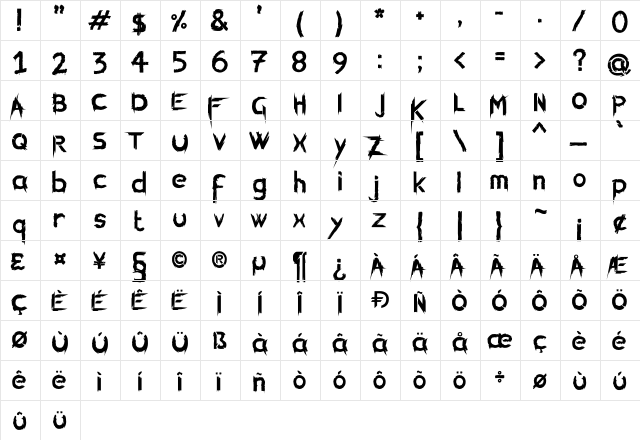
KillingFont Regular
| Foundry | briZoft |
| Designer | briZoft |
Design Context for KillingFont Typeface
KillingFont is a composed and adaptable typeface that performs quietly and consistently across a wide range of design contexts.